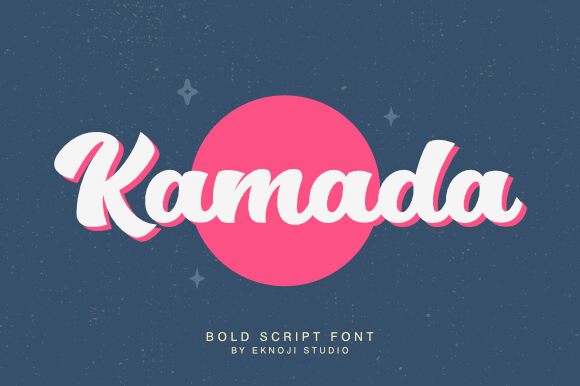
Introducing Kamada, a bold handwritten script font designed by Eknoji. It is perfect for making logos, invitations, cards and other creative projects that require a stylish and unique touch.
Kamada